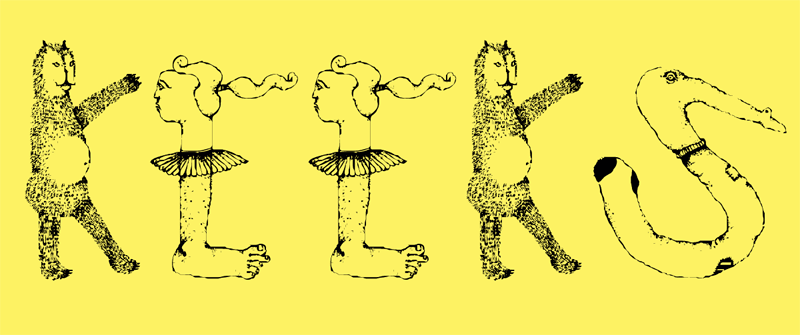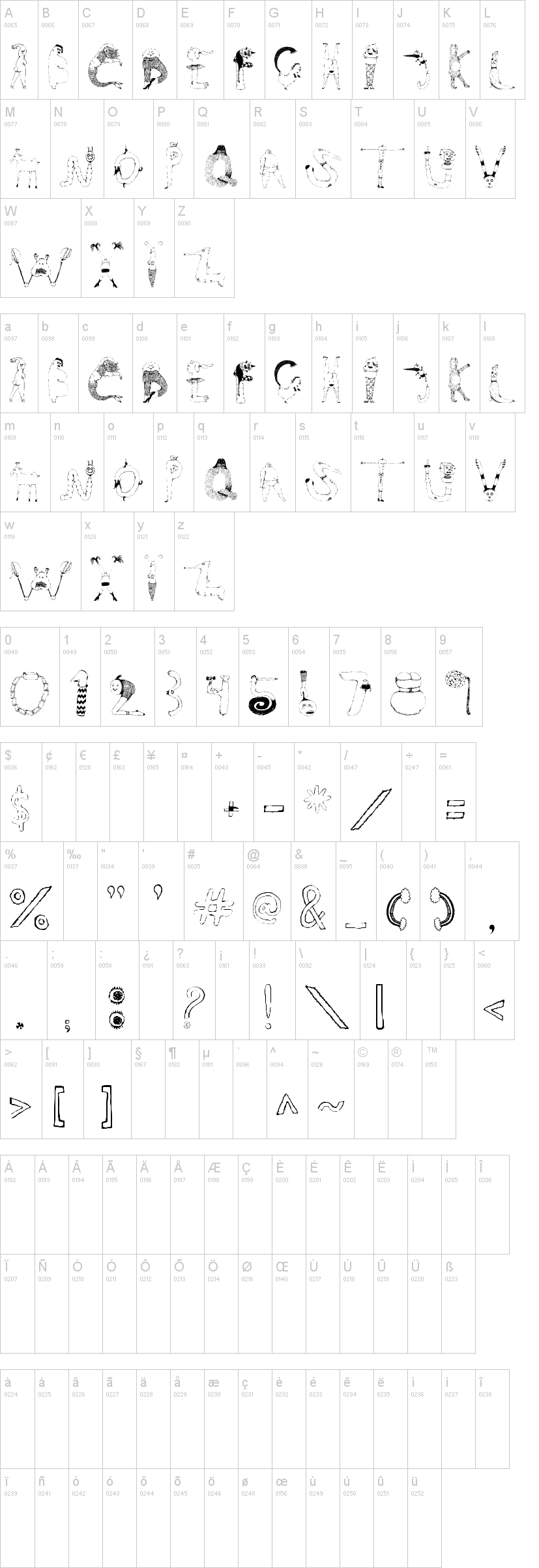
Bored at work, I drew these characters, scanned them, and then vectorized them in Illustrator. I apologize for how long it takes to load. This is the first font I've created, and I wanted to retain as much detail as possible.